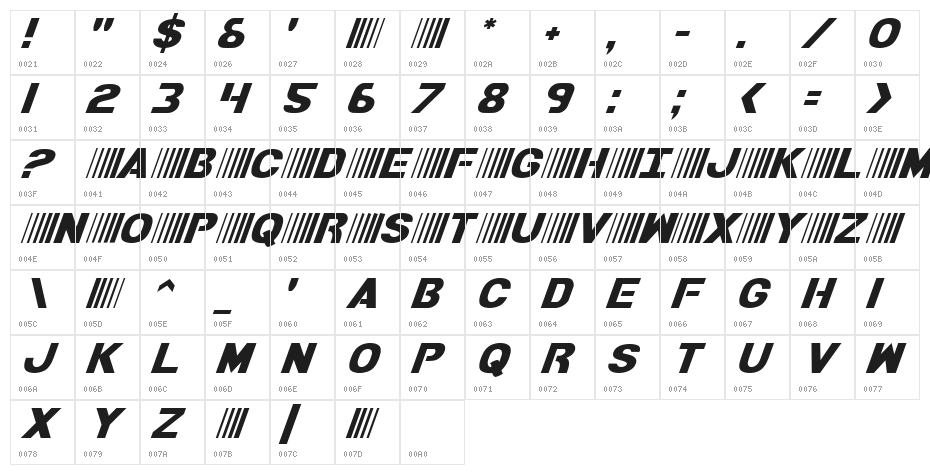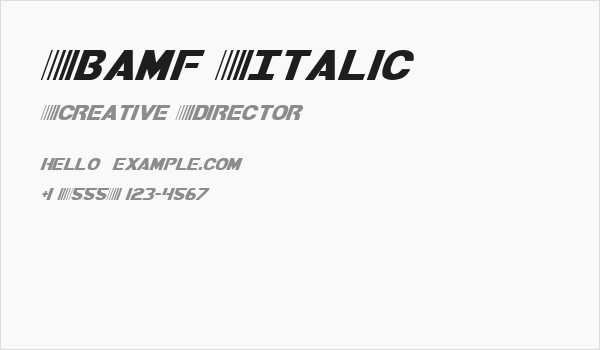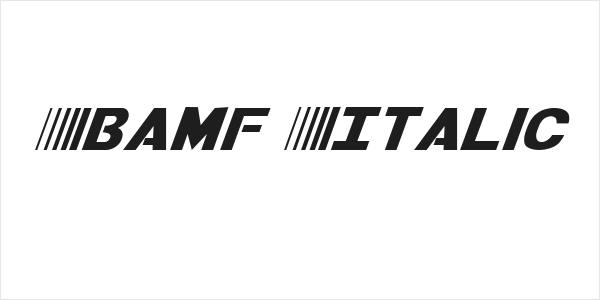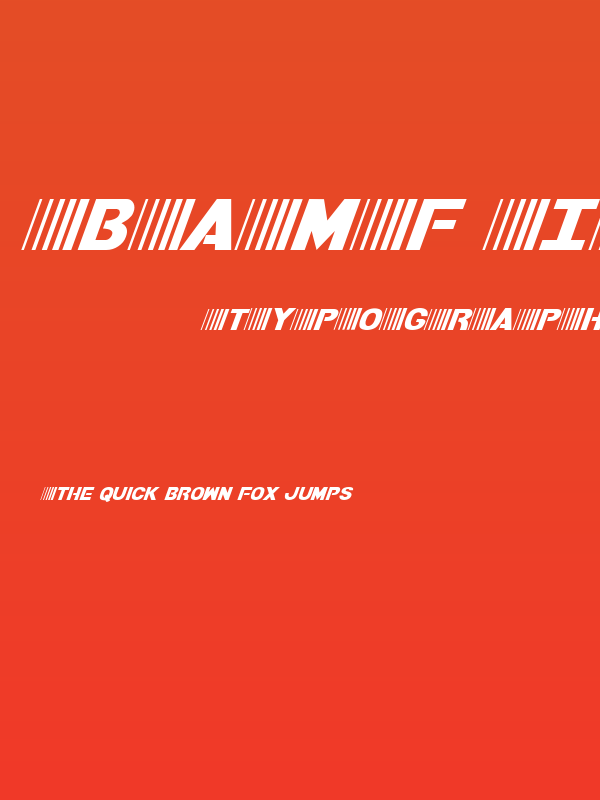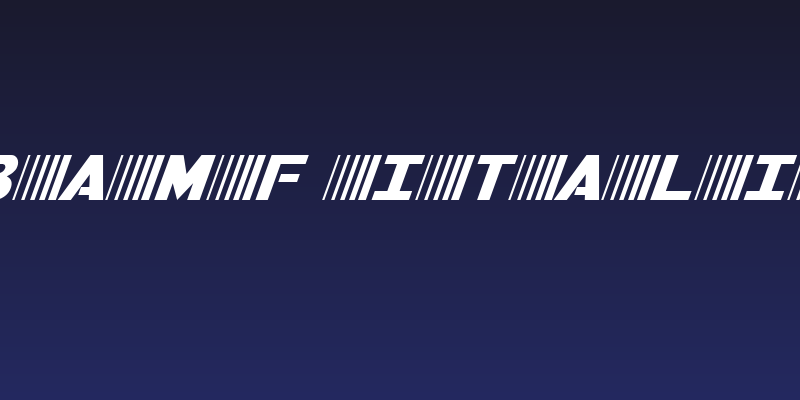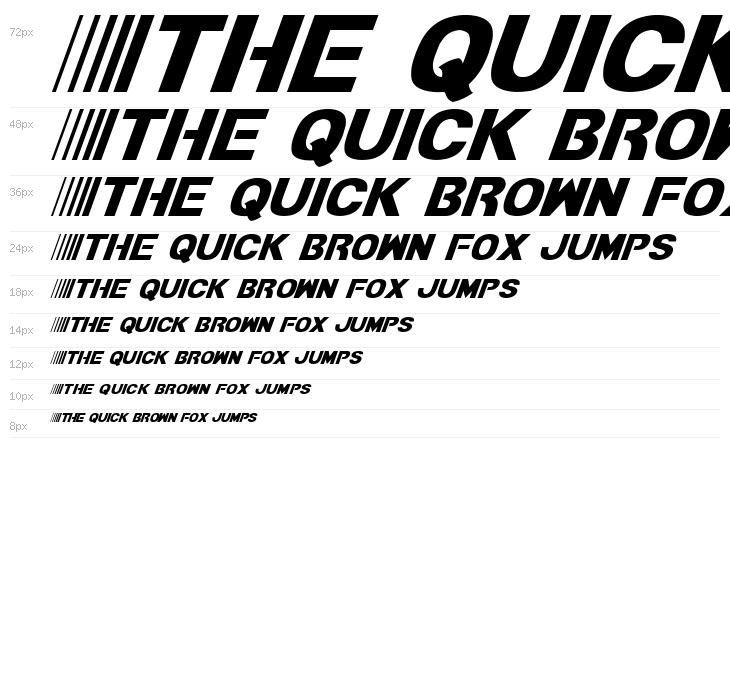
Bamf Italic Font
Bamf Italic Description
This font exhibits a bold, italicized style with a dynamic and energetic appearance. The uppercase letters are characterized by a strong slant, giving a sense of motion and speed. The lowercase letters maintain this slant, ensuring consistency across the typeface. The numerals are equally bold and slanted, complementing the overall design. Special characters are included, maintaining the same bold and italicized style. The font's design is modern and impactful, making it suitable for attention-grabbing headlines and logos. Its boldness and slant create a sense of urgency and movement, ideal for projects that require a strong visual impact.